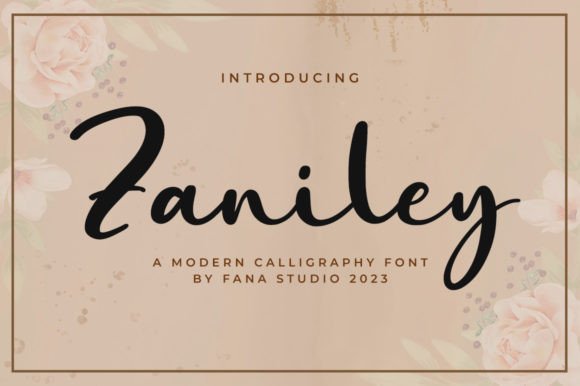
Introducing Zaniley Script, the ultimate font style that will elevate your creative projects to new heights. Created by the talented team at FanaStudio, this font is specially designed to captivate and inspire.
With its elegant, classy, and modern look, Zaniley Script adds a touch of sophistication to any design. Whether you're working on logos, branding, invitations, or stationery, this font will make your projects stand out from the crowd.
But that's not all. Zaniley Script is also perfect for wedding designs, social media posts, advertisements, product packaging, labels, photography, and watermarks. Its versatility knows no bounds.
But don't just take our word for it. Experience the magic of Zaniley Script for yourself. Let your creativity run wild and watch as your designs come to life.